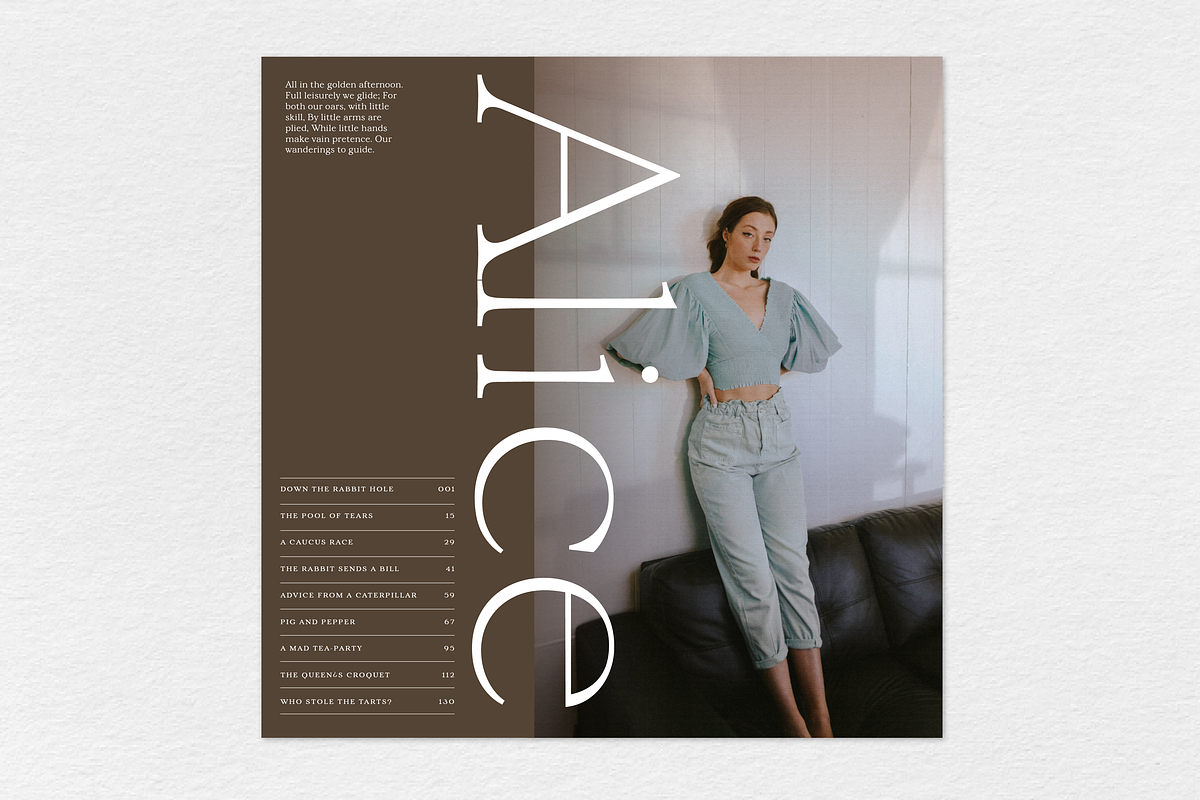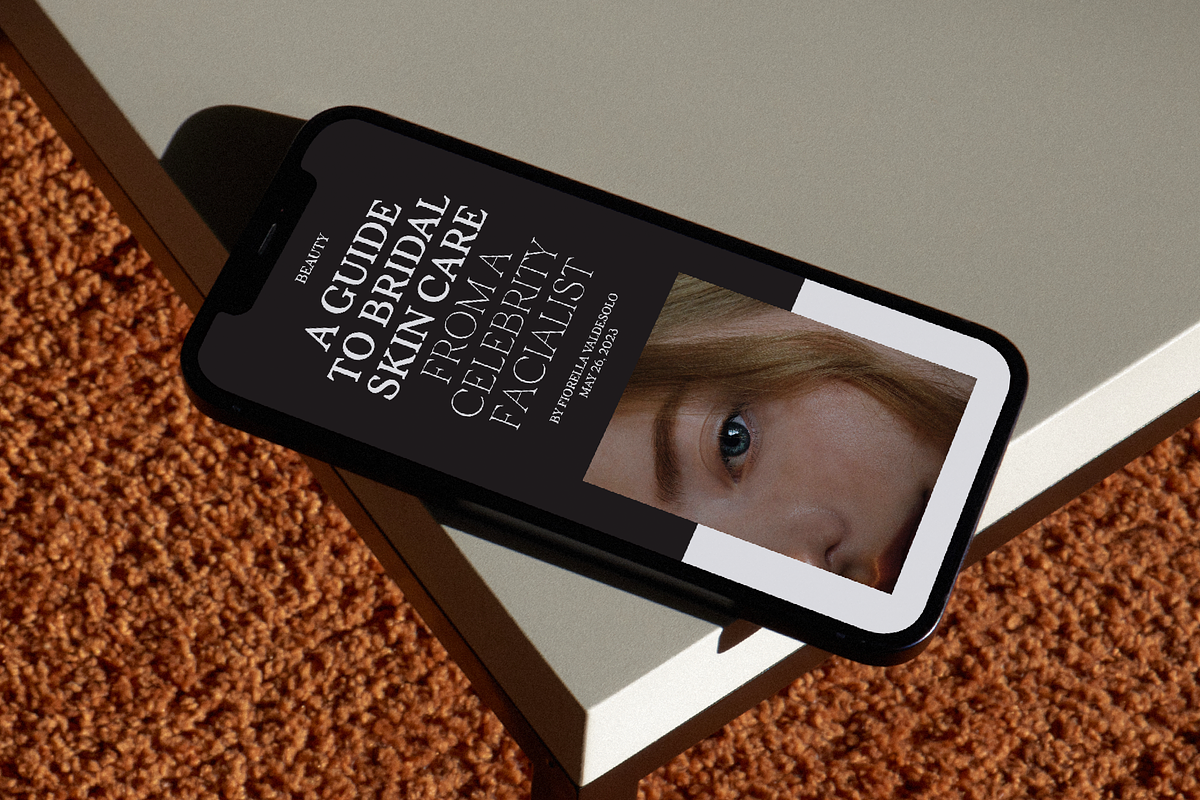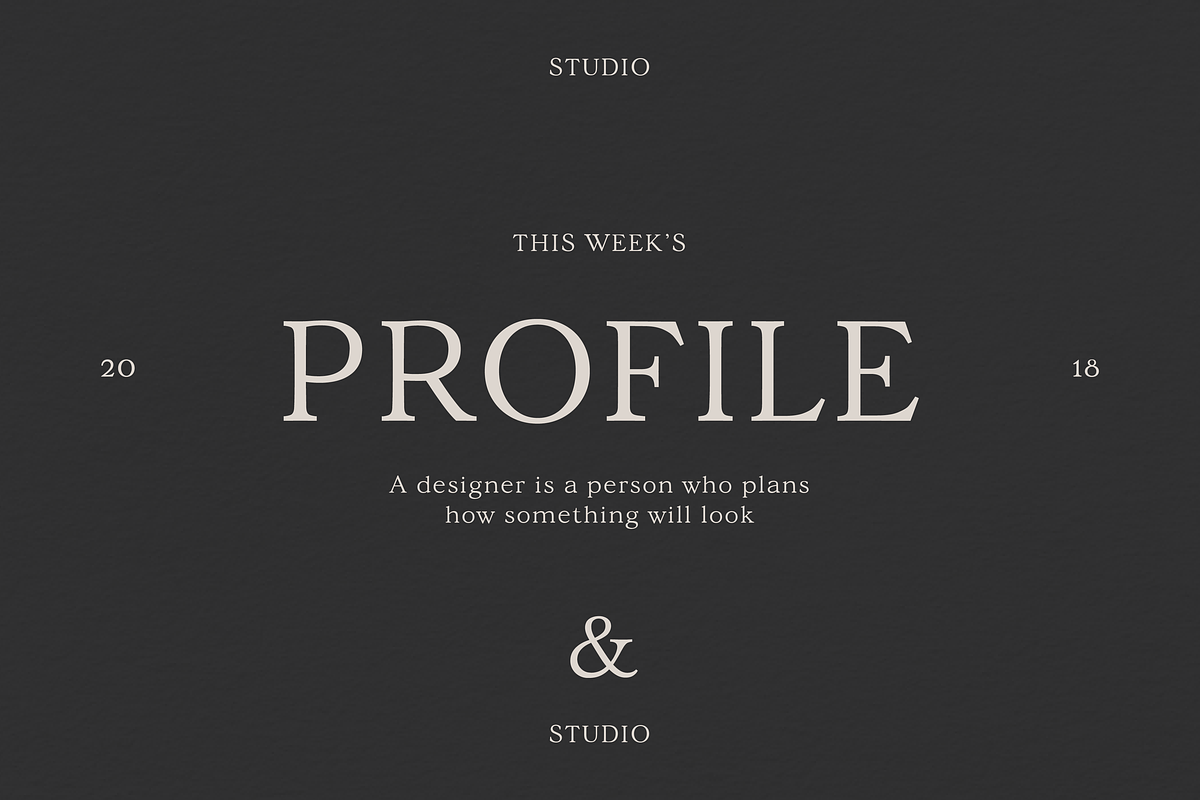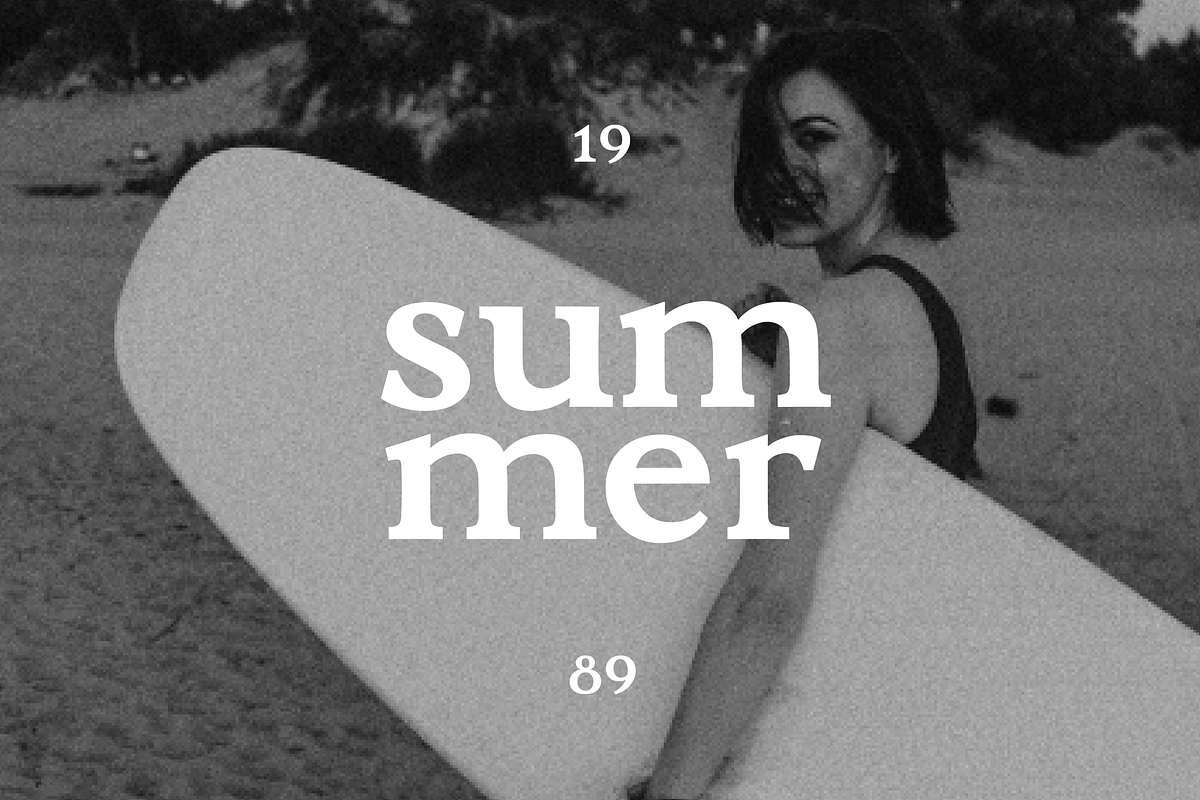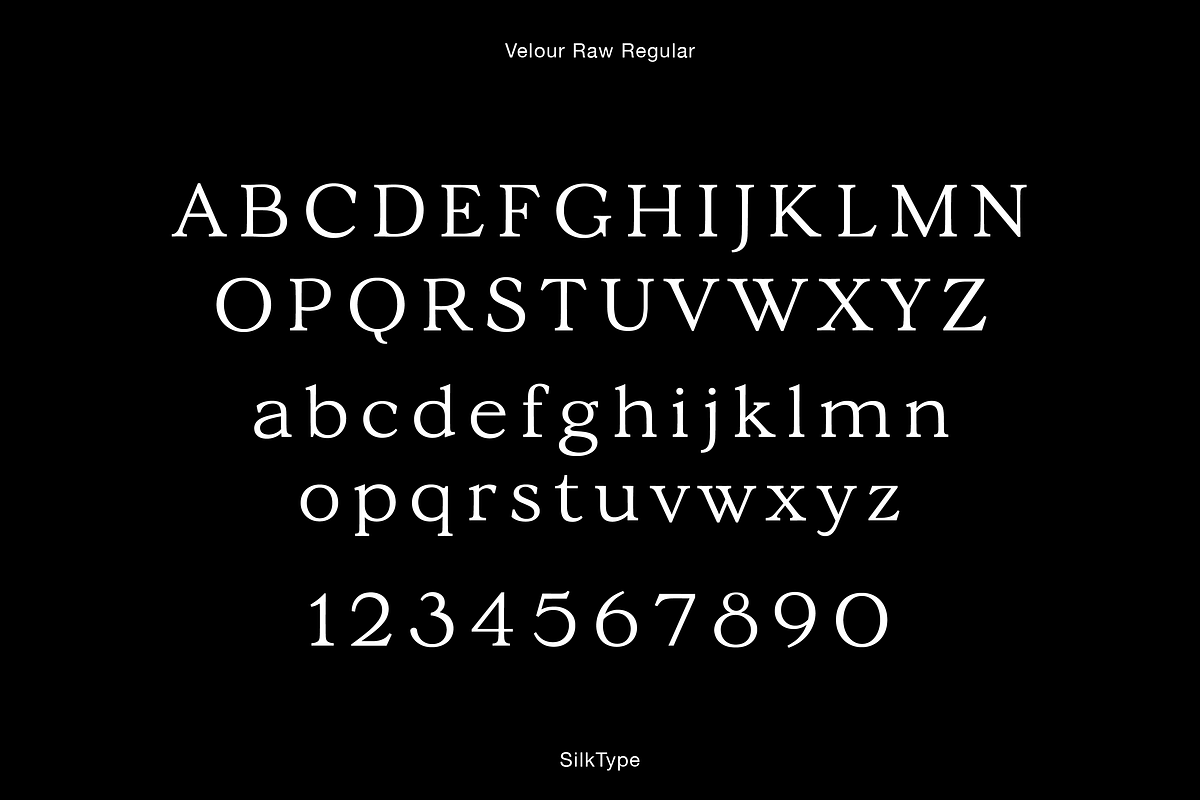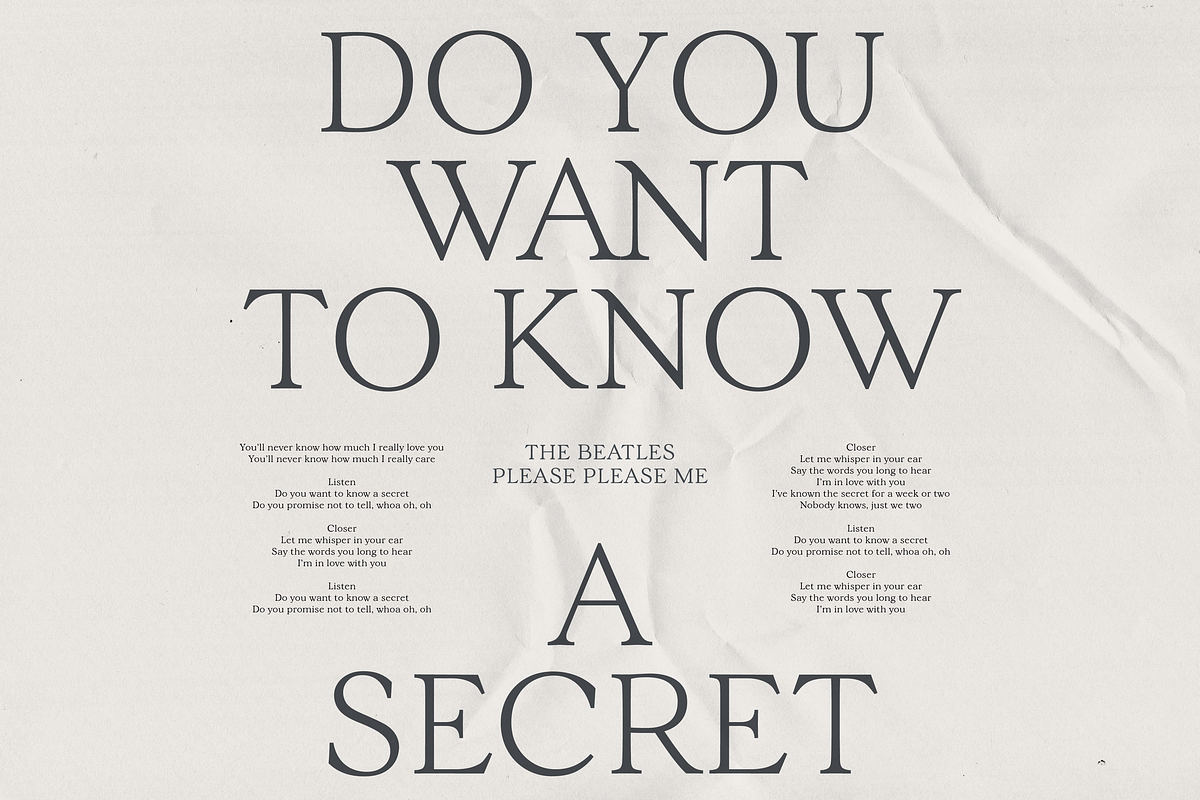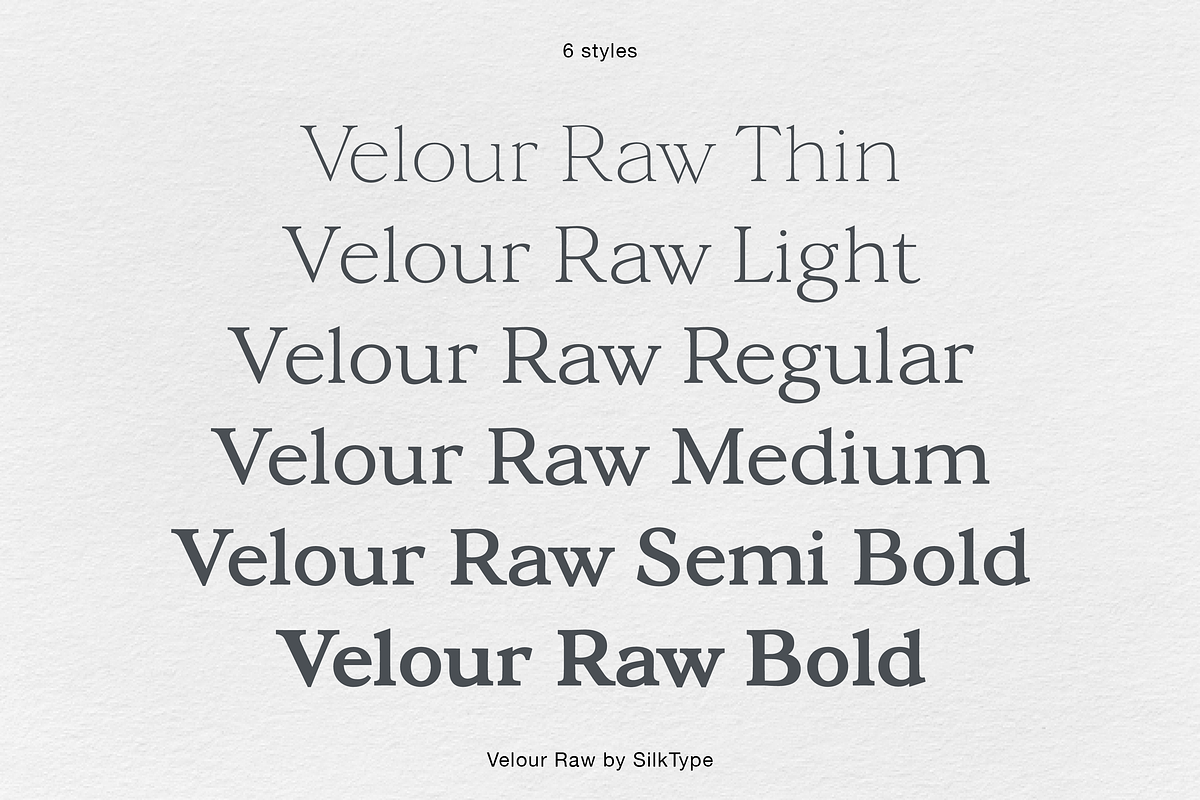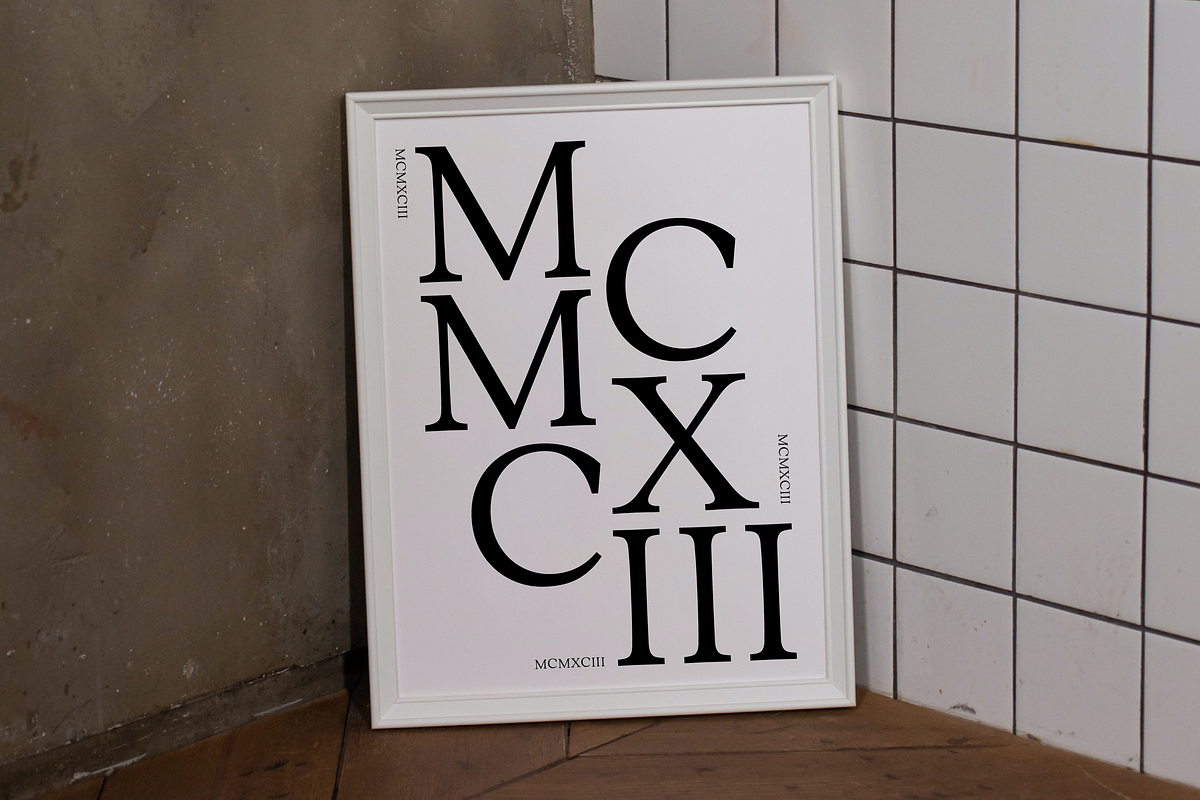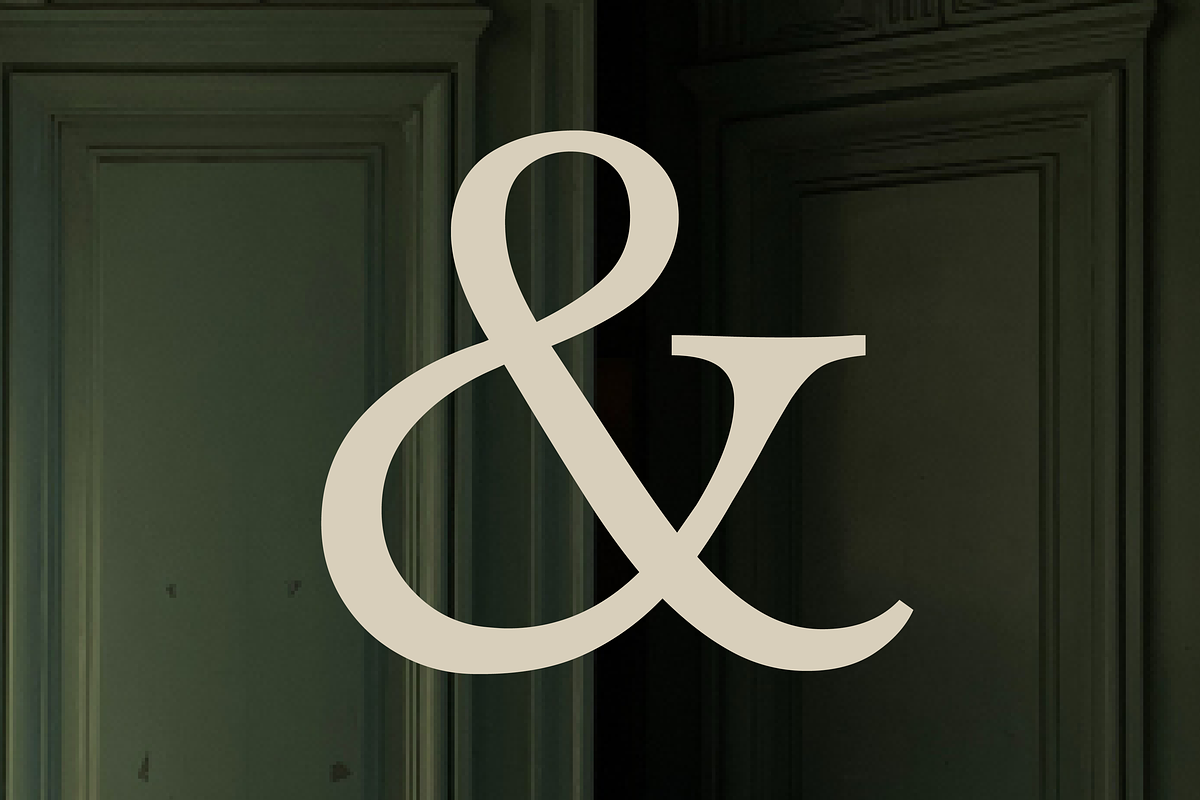
Velour Raw - 6 font famliy
Velour Raw is a simpler, less contrasted version of the display typeface Velour. Velour Raw is legible suitable for text in smaller sizes. Velour Raw is available in 6 weights, from Thin to Bold, and supports Western, Central and South Eastern European languages.